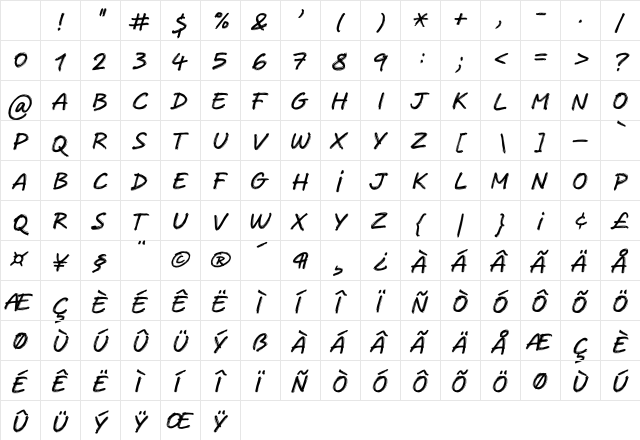
Complete Crabmeal Regular glyph index. Displaying only characters natively supported by Crabmeal Regular font.
Crabmeal is a composed and adaptable typeface that performs quietly and consistently across a wide range of design contexts.